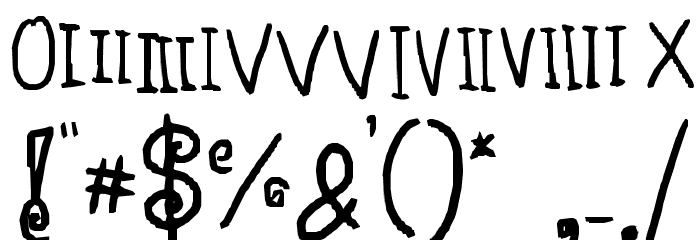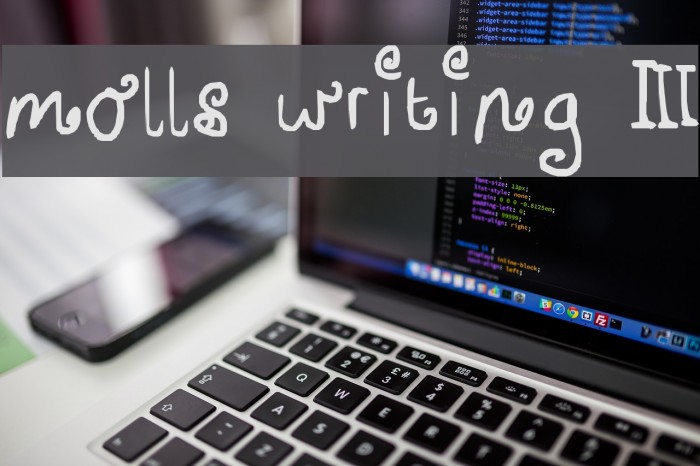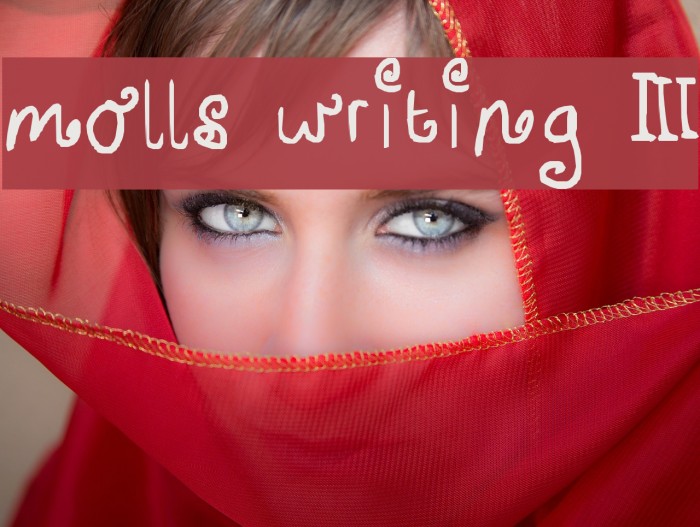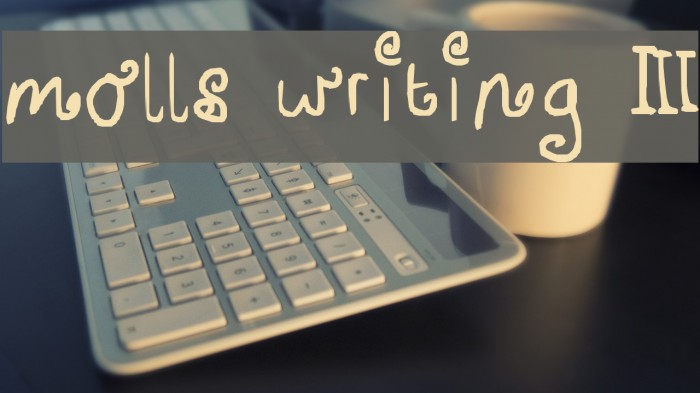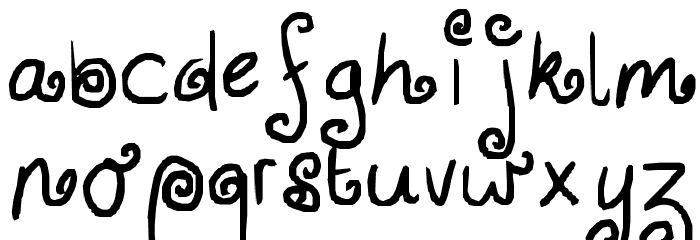
molls writing 3 Font
molls writing 3 Description
This font features a whimsical and playful design with a hand-drawn aesthetic. Each character is uniquely crafted with curly and swirly elements, giving it a lively and artistic feel. The uppercase letters are bold and decorative, while the lowercase letters maintain a consistent style with charming loops and curves. Numbers and special characters follow the same playful theme, making the font suitable for creative and informal projects. The overall style is reminiscent of a child's handwriting or doodles, adding a sense of fun and creativity to any design.
A whimsical, hand-drawn font with playful curls and swirls from Uncategorized fonts.
- Proposed Projects: Ideal for children's books, playful invitations, greeting cards, and creative branding.
- Use Case: Headlines, Logos, Creative projects